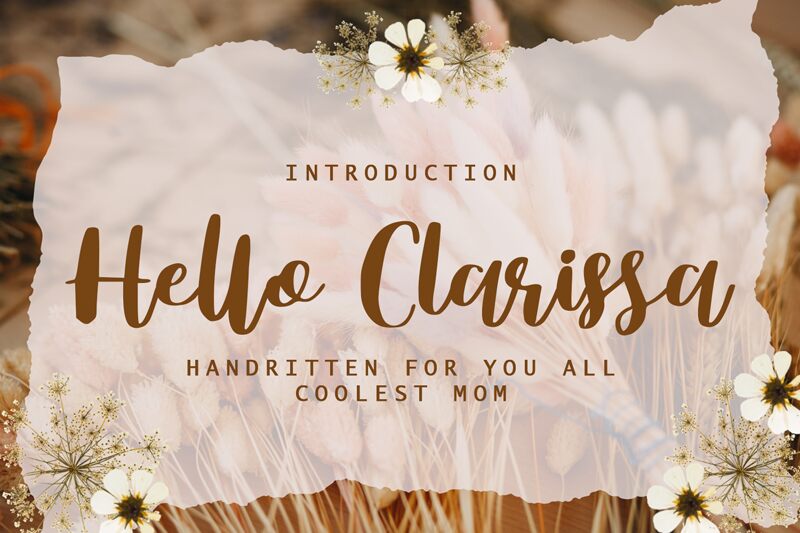
Hello Clarissa
Hello Clarissa is a stunning semi-bold handwritten font designed by Mengulirpena. Its unique style adds a touch of personality to any project, making it perfect for wedding invitations, greeting cards, branding, and more. The thick strokes and playful curves of Hello Clarissa make it both easy to read and visually appealing. This font is perfect for those looking to add a little flair to their designs while maintaining readability. Whether you're creating marketing materials or personal projects, Hello Clarissa is sure to make your message stand out with its whimsical charm.